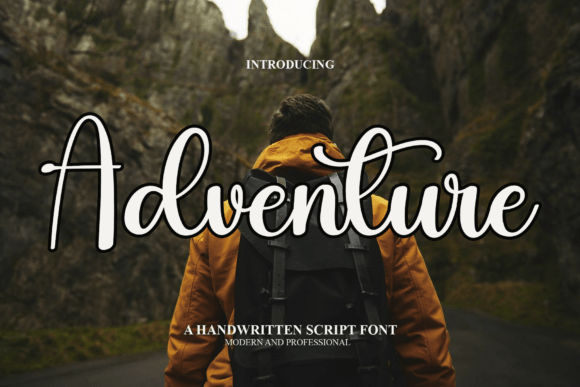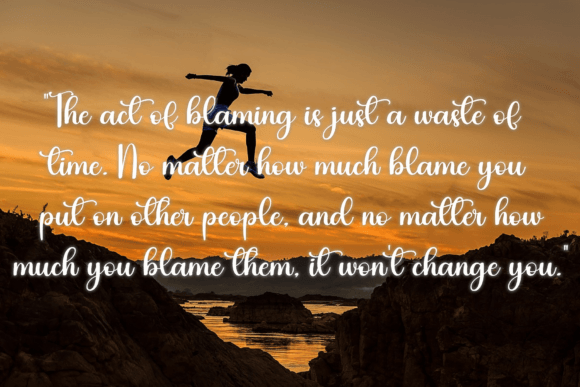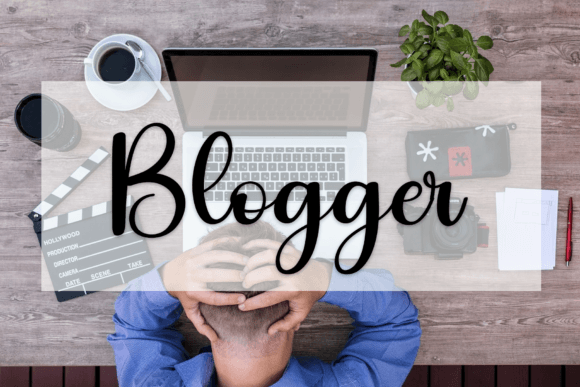
Adventure is a unique, round-lettered handwritten font that has been meticulously crafted to elevate your favorite projects. With its distinctive and rounded letterforms, this font is versatile and well-suited for various applications, including writing titles, invitations, letters, and a variety of other creative products.
The uniqueness of Adventure lies in its round-lettered design, offering a friendly and approachable appearance. The carefully crafted letterforms contribute to the font’s individuality, making it a standout choice for projects that require a touch of originality.
When used for titles, Adventure introduces a playful and stylish flair. The round shapes provide a soft and inviting appearance, making it suitable for a range of creative applications, from posters to digital designs.
In invitations, Adventure adds a personalized and charming touch. The handwritten style enhances the warmth of your message, creating an inviting and memorable atmosphere for recipients.
For letters or other textual content, Adventure provides a distinctive look that captures attention. Its round-lettered form sets it apart, making your written communication more visually interesting and engaging.
The versatility of Adventure allows it to adapt to various types of projects, adding a unique and creative dimension to your designs. Whether you’re working on print materials, digital graphics, or other creative endeavors, Adventure is ready to enhance your projects with its carefully crafted round-lettered style.
In summary, Adventure is more than just a font; it’s a design asset that brings a unique and round-lettered handwritten style to your favorite projects. Whether you’re writing titles, invitations, letters, or other textual content, Adventure adds a touch of originality, making your designs stand out with its distinctive and carefully crafted aesthetic.